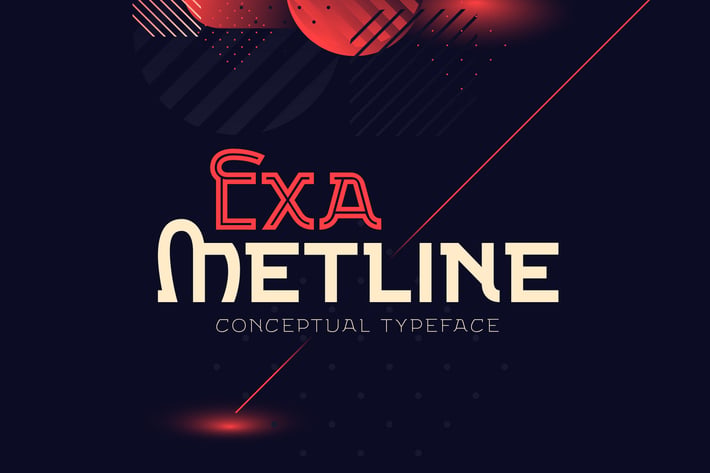
Exa Metline font
Hello! Presenting a conceptual font Exa Metline. It's a modern style geometric typeface with unusual letters shape. This package consists of 3 fonts with separate inside line layer. Also 10 alternate characters are available, if you'll need a more familliar letters shape.